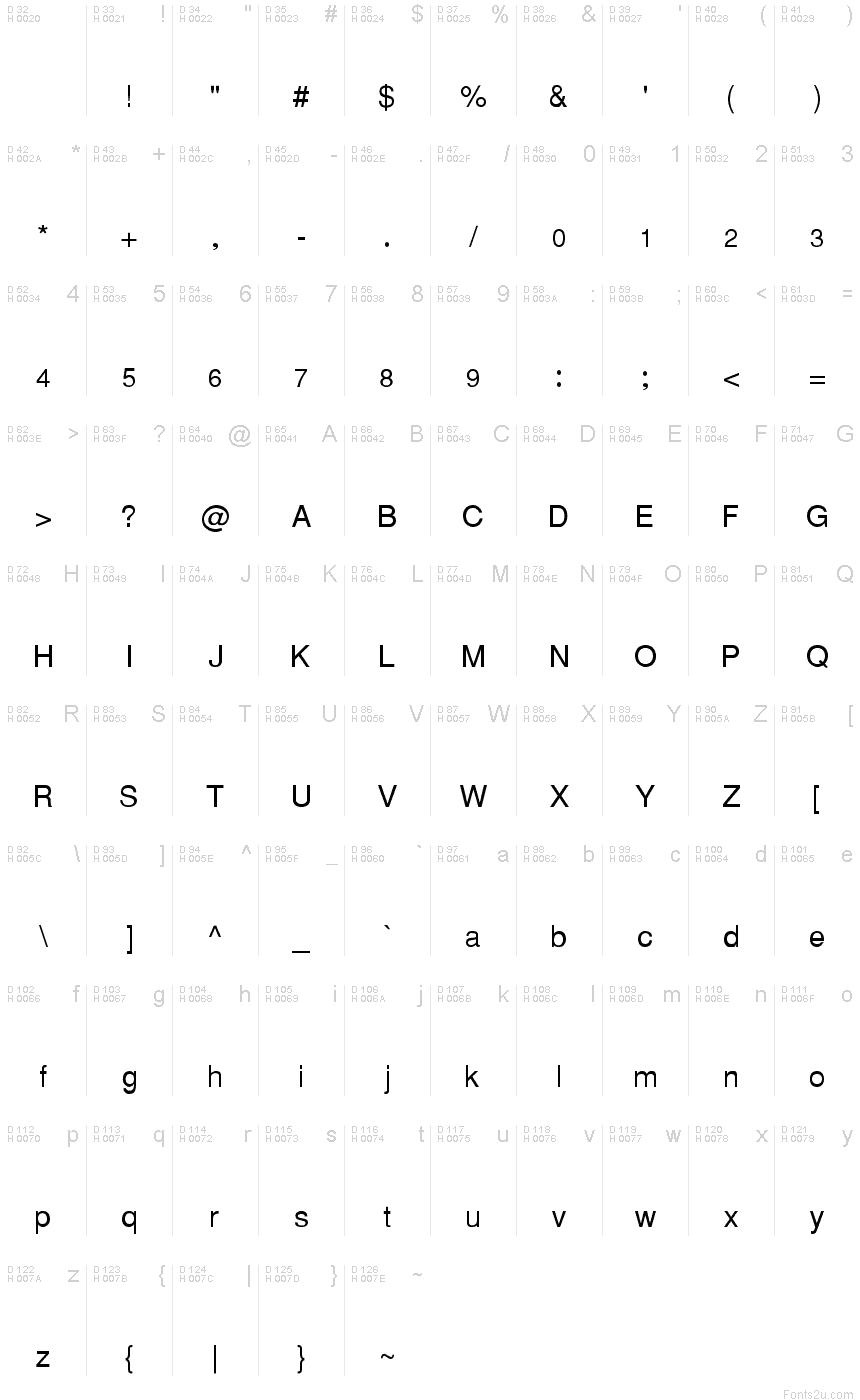
DB Thai Text is a free light sans serif with tall, spacious letterforms and an understated modern finish. Its slim strokes, broad capitals, and clean round curves give the lettering an airy, measured pace.
Cultural institutions and design-led publishers could use it for exhibition graphics, magazine covers, and identity systems. The restrained drawing also suits premium packaging, where it can suggest refinement without decorative detail. In branding, its open proportions support a calm, contemporary product identity.